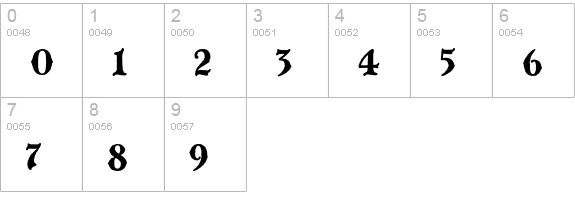
Blackwood Castle is a beautifully crafted font that exudes an air of mystery and elegance. Inspired by the grandeur of medieval castles, this font captures the essence of their timeless charm and brings it to life on your digital canvas. With its intricate details and enchanting curves, Blackwood Castle adds a touch of sophistication to any design project. Whether you're creating a logo for a luxury brand, designing invitations for a romantic wedding, or crafting a stylish poster, this font will elevate your work to new heights. What sets Blackwood Castle apart is not just its stunning aesthetics, but also the fact that it is freely available to download at FontsMarket.com. Yes, you read that right – this exquisite font is completely free! Now, you can enhance your designs with a touch of elegance without breaking the bank. The versatility of Blackwood Castle is another reason to love this font. It can be beautifully paired with both serif and sans-serif fonts, adding a touch of drama and sophistication to your typography. Its timeless appeal makes it suitable for a variety of projects, from branding to editorial design, ensuring that your work always stands out from the crowd. So why wait? Embrace the allure of Blackwood Castle and download it for free at FontsMarket.com. Discover the magic of this font and let it unleash your creativity, taking your designs to a whole new level of sophistication and elegance.